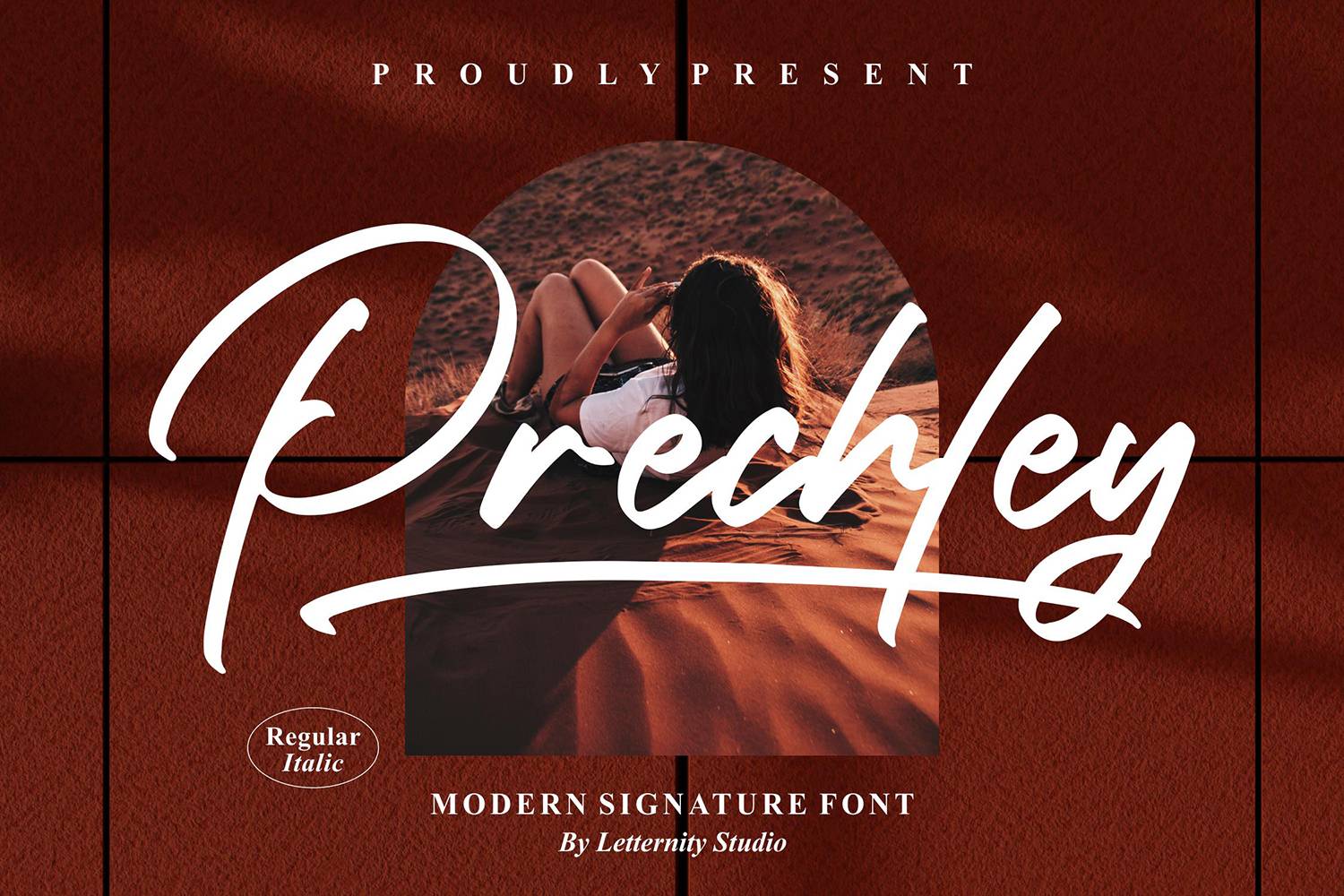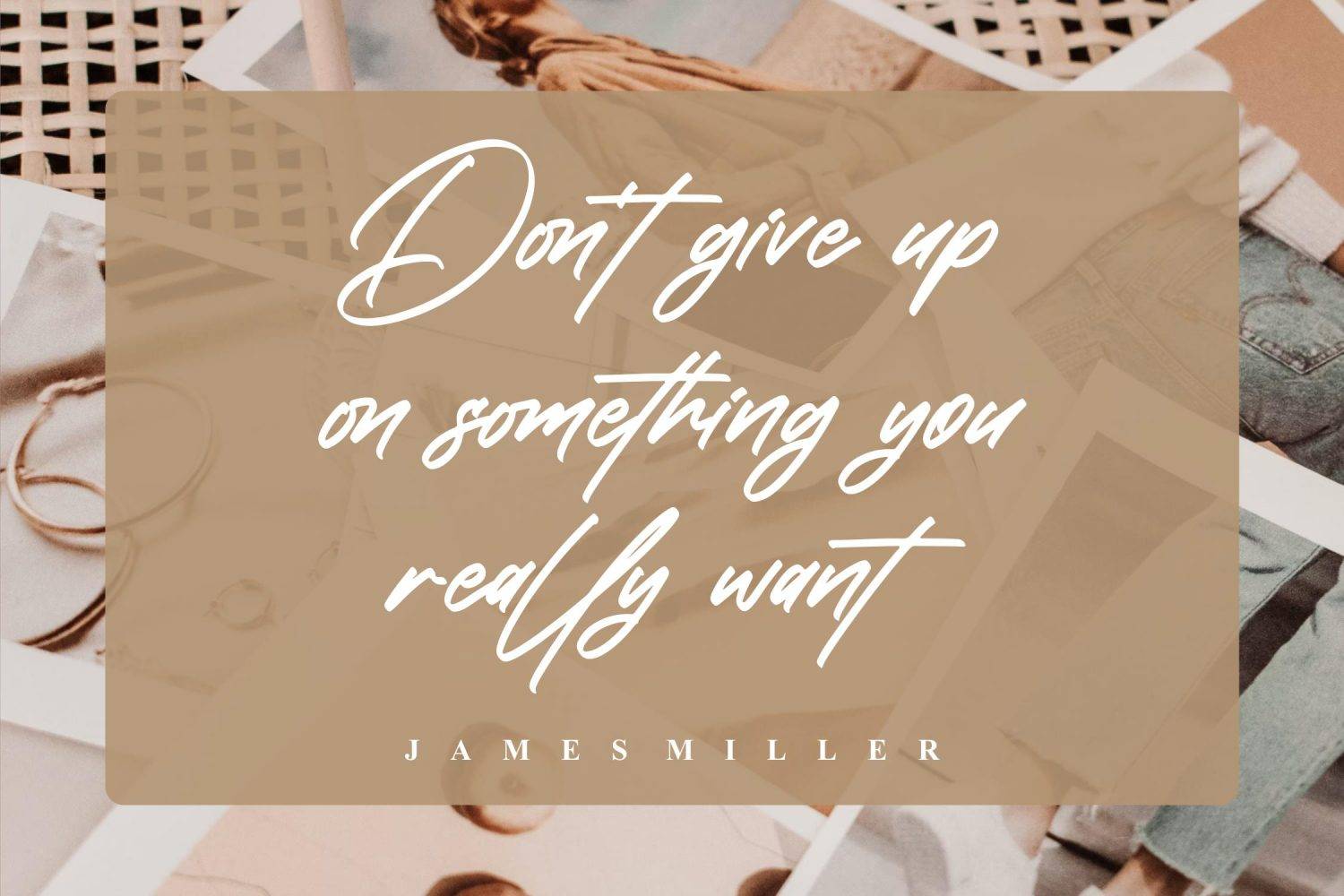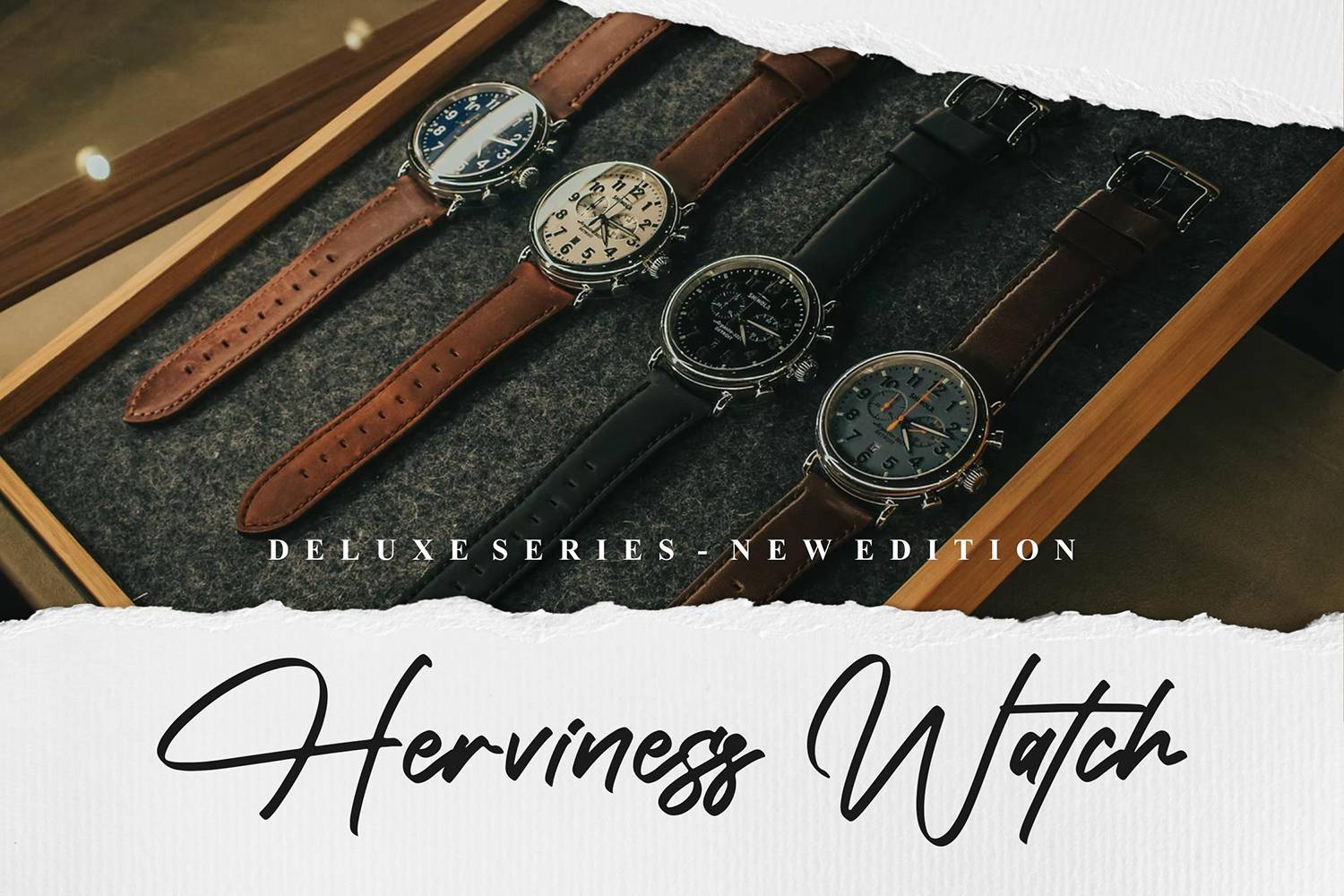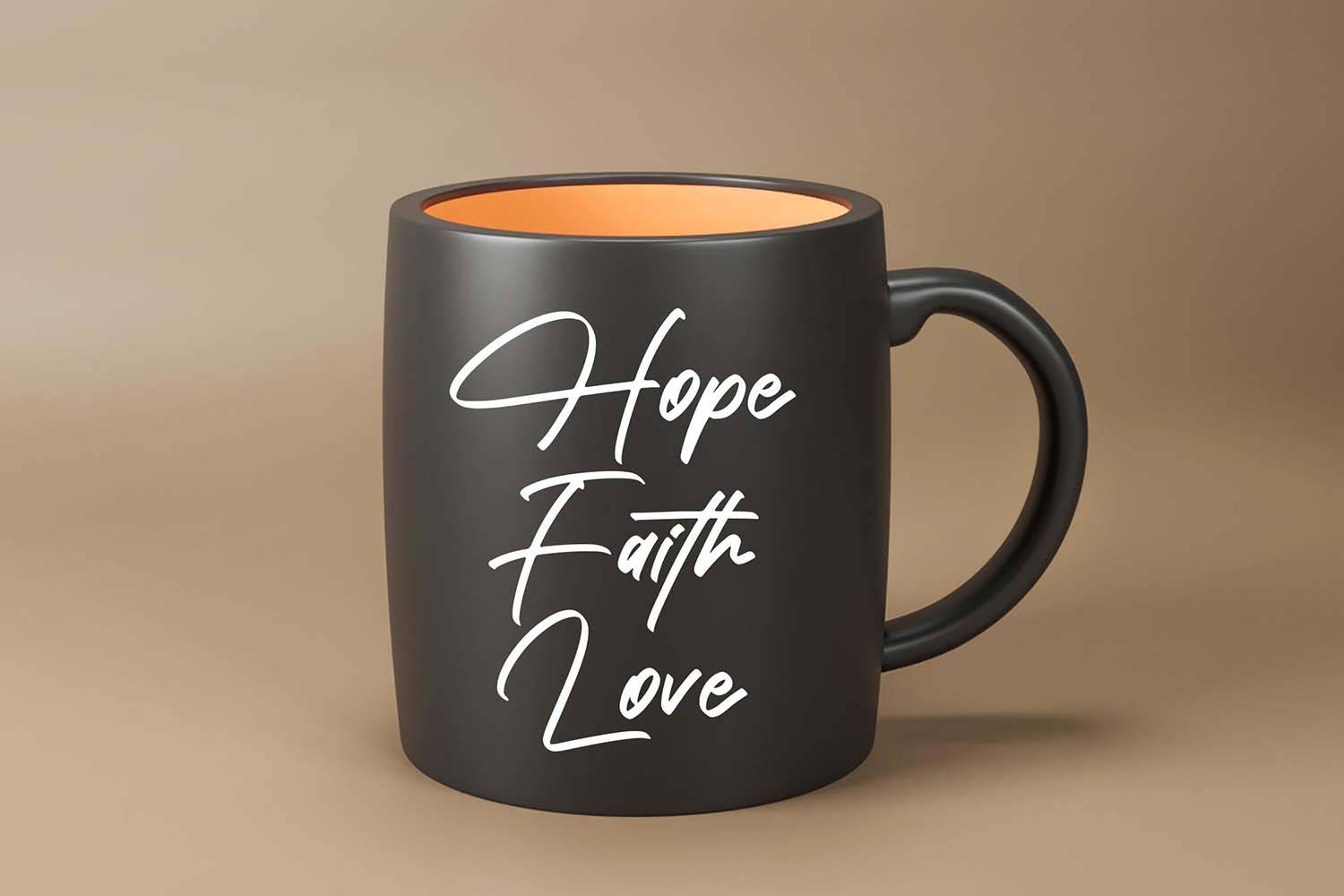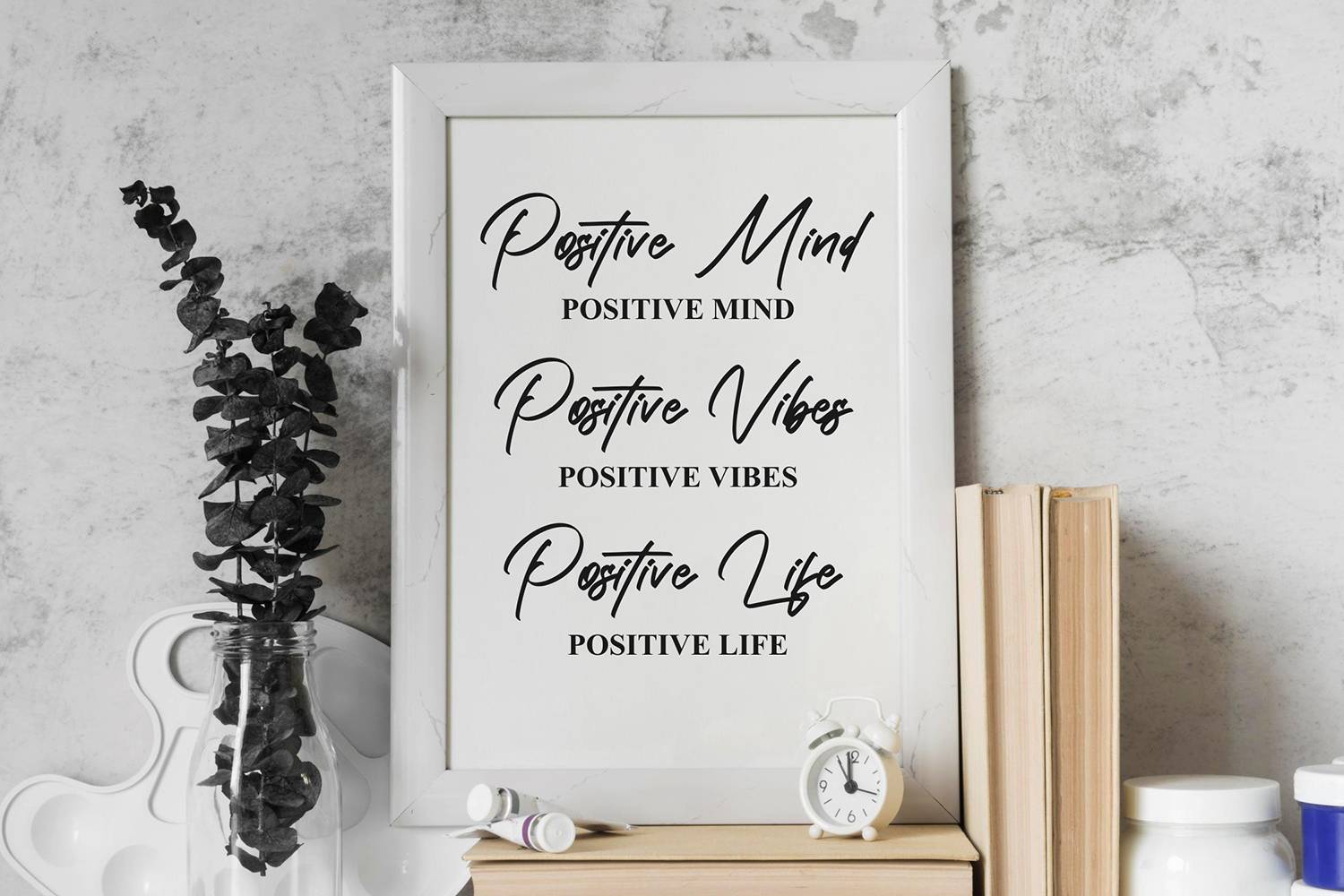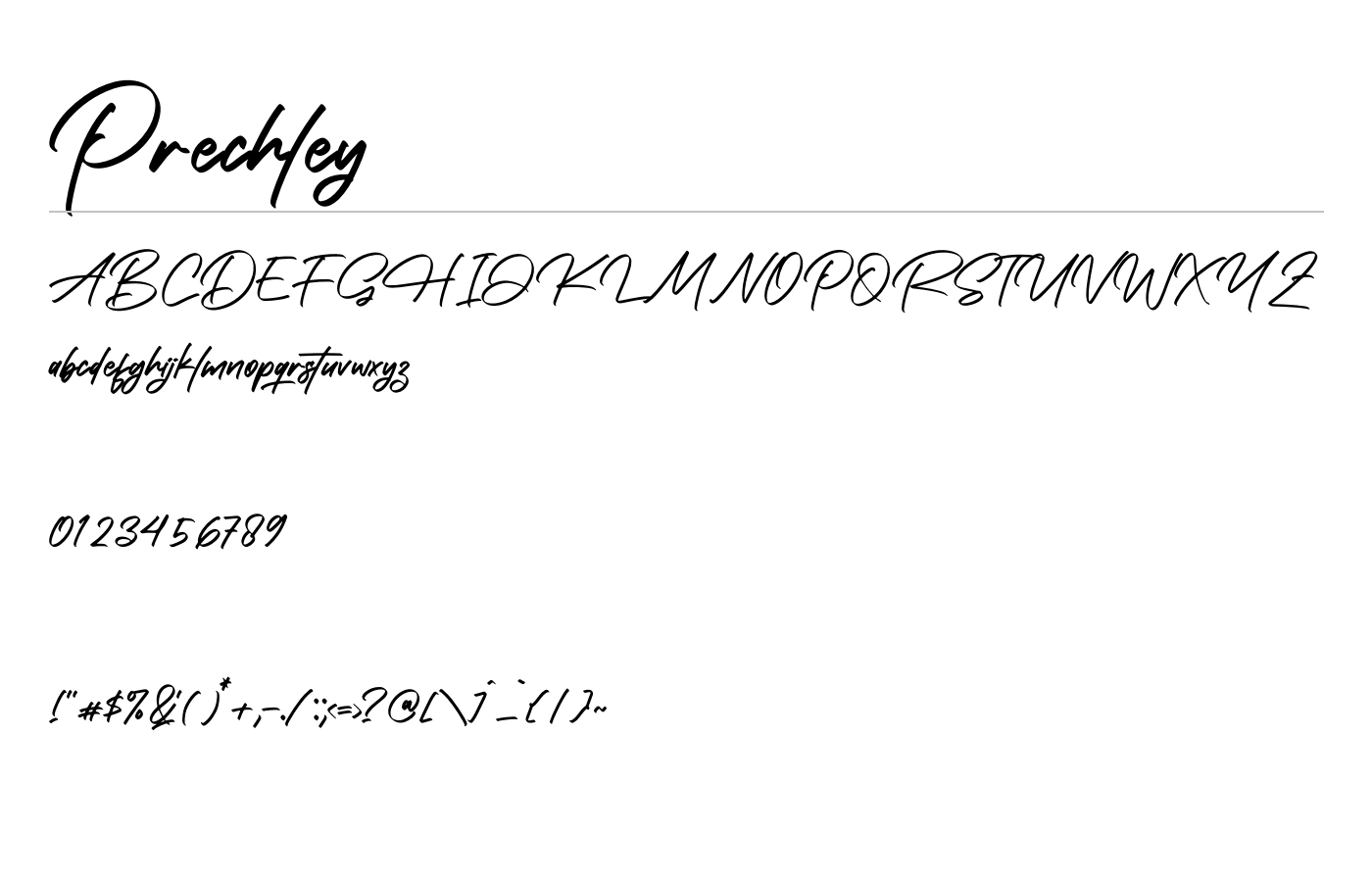
Prechley is an elegant script font characterized by its smooth, flowing strokes and a lively, handwritten style that adds a personal, artistic touch to any design. It features a moderate contrast in weight, slanted forms with a casual yet refined feel, and supports a full range of uppercase, lowercase, numbers, and symbols, making it ideal for creative branding, invitations, and stylish headlines. This font works well where a signature or hand-crafted vibe is desired, enhancing projects with a sense of warmth and individuality.
Prechley Font
About Prechley Font